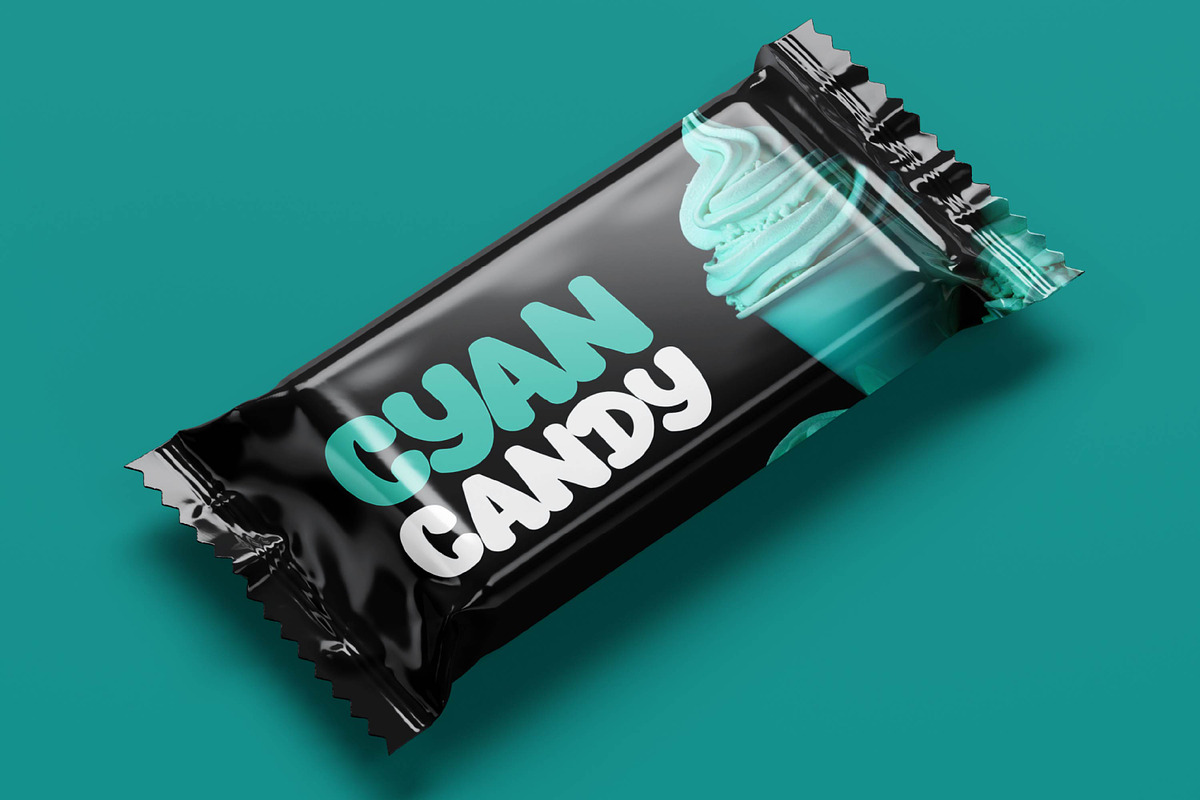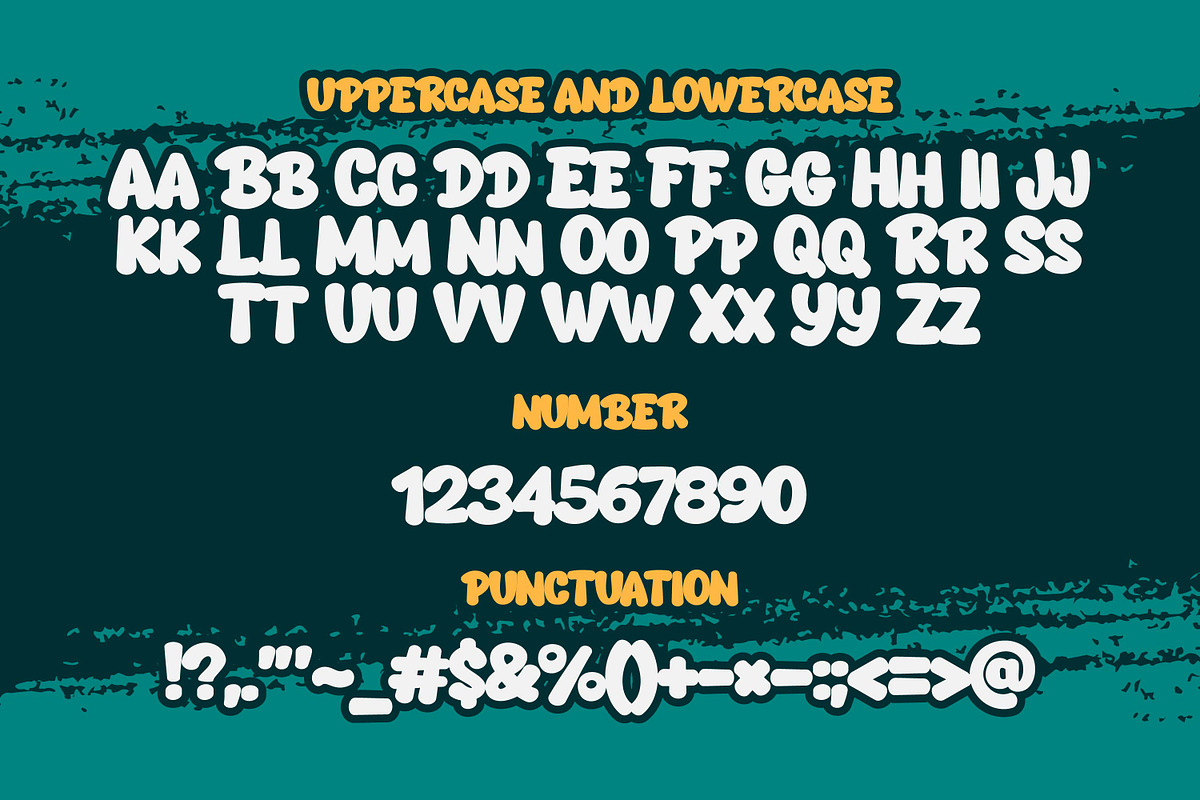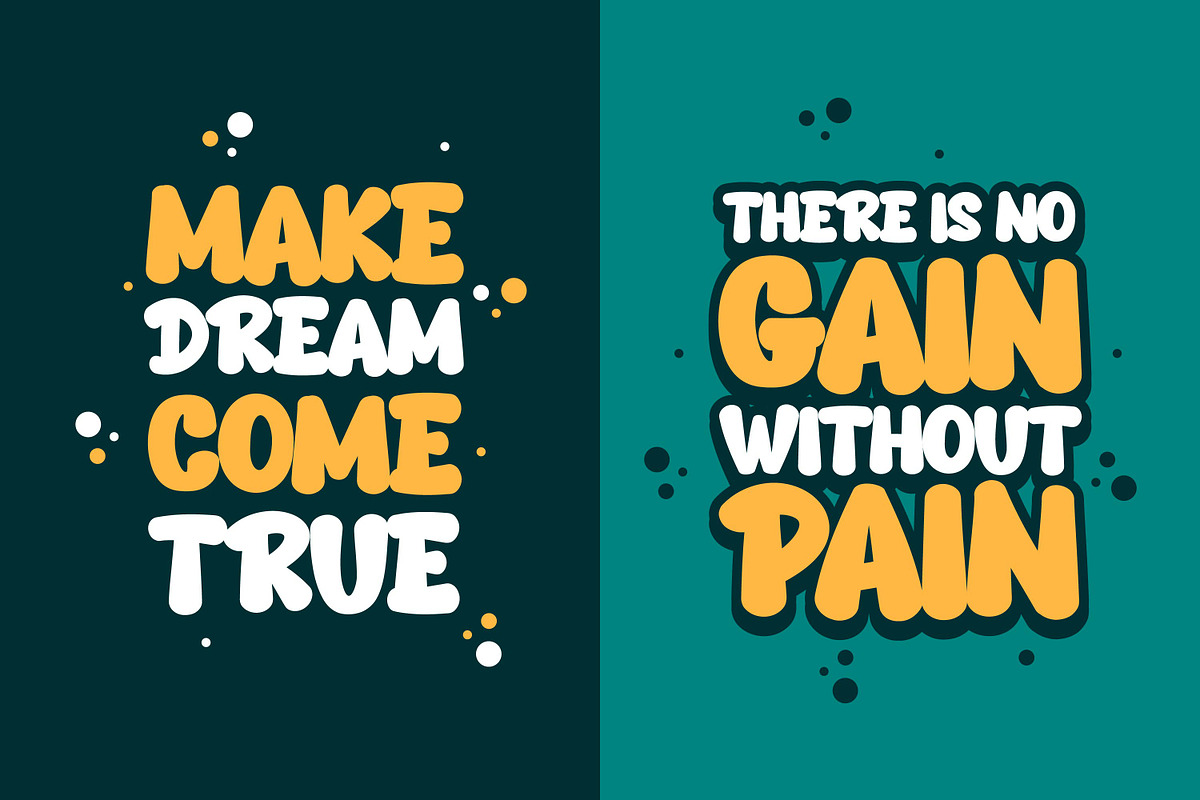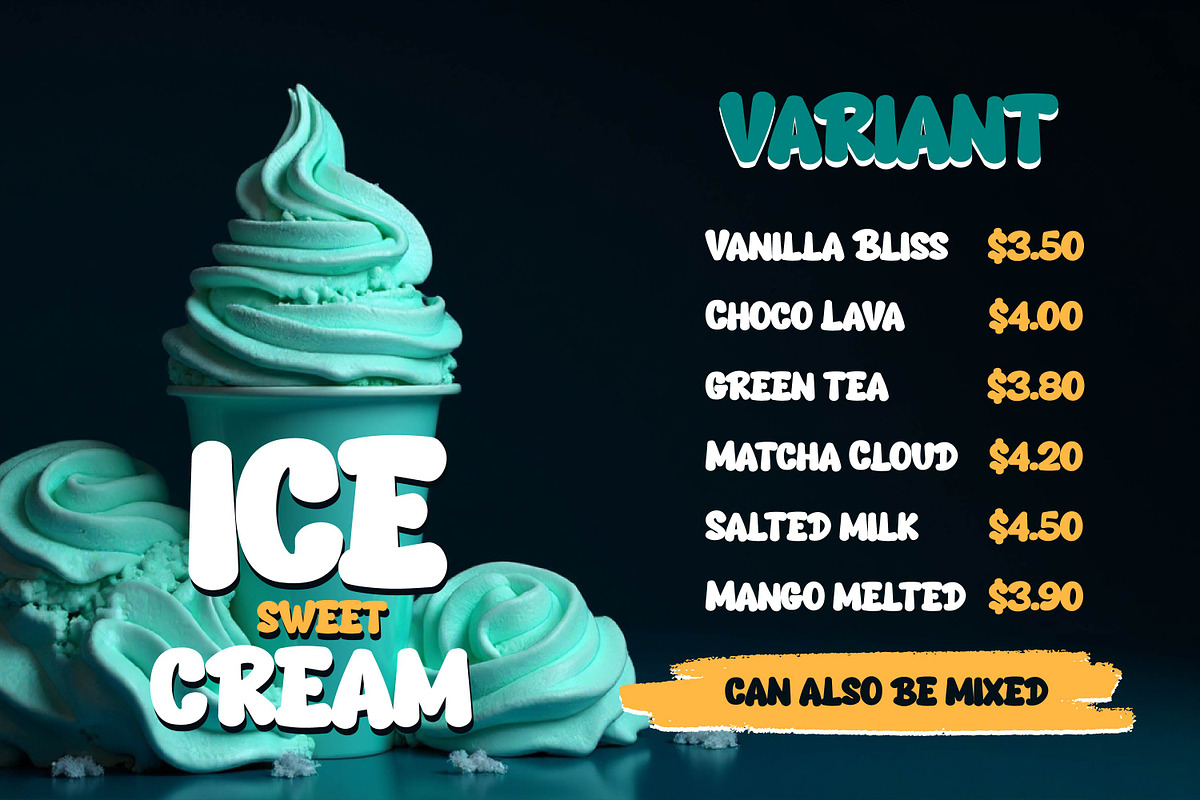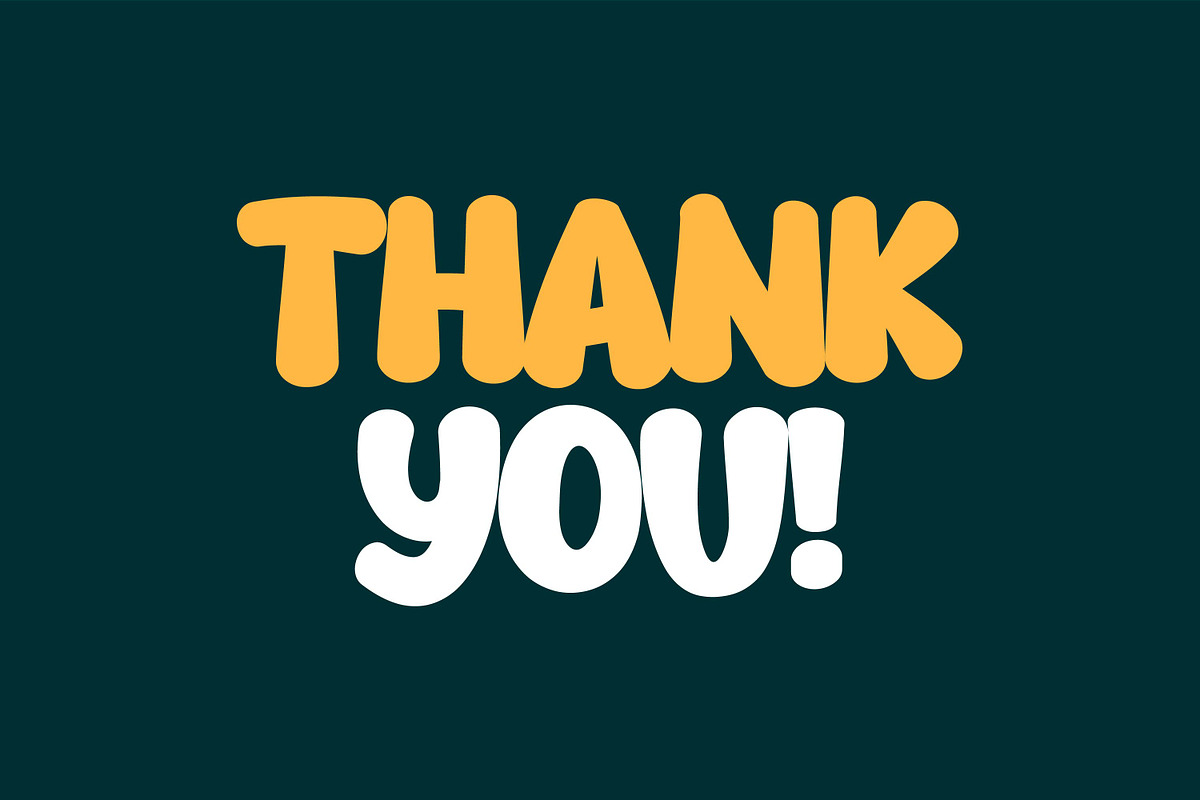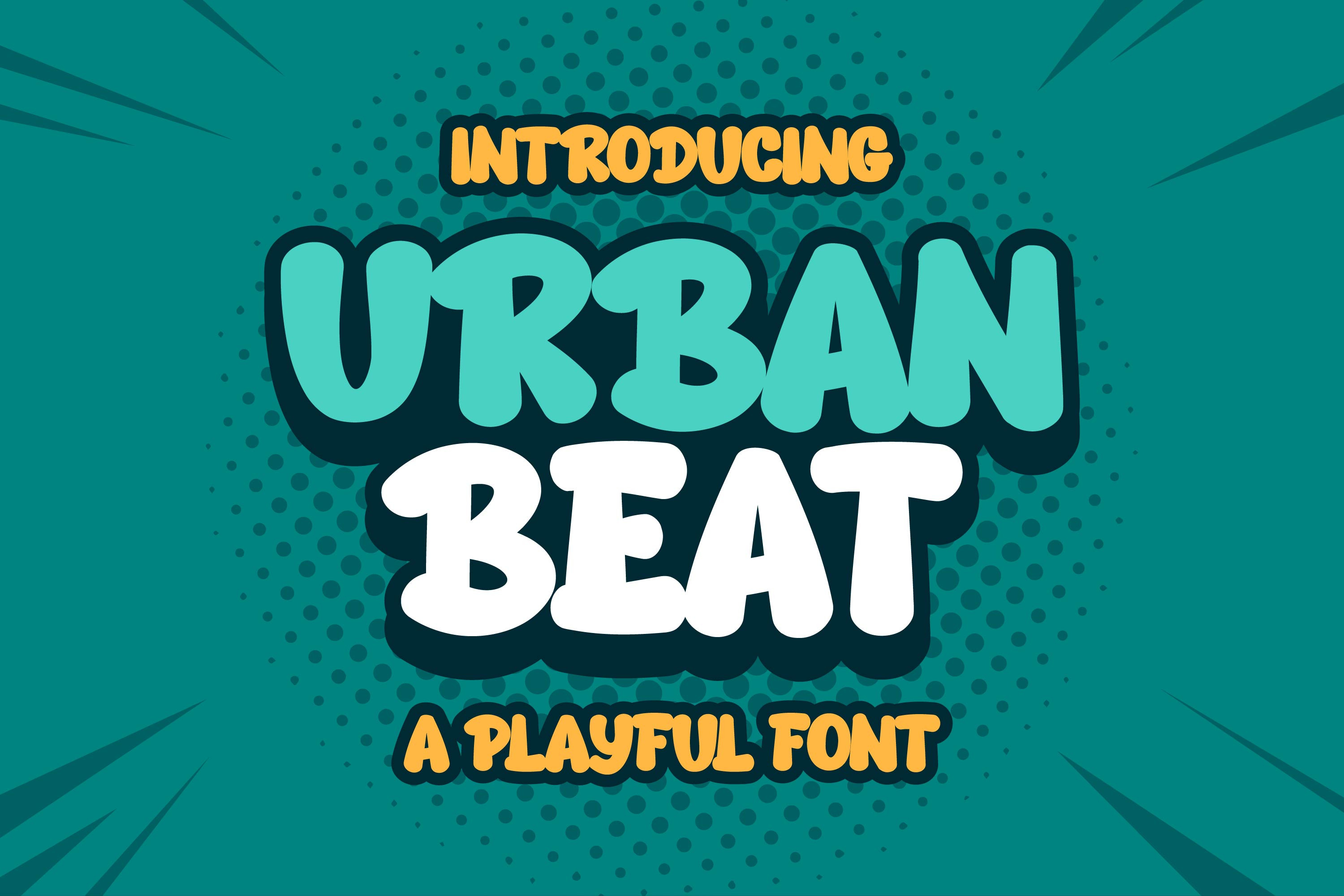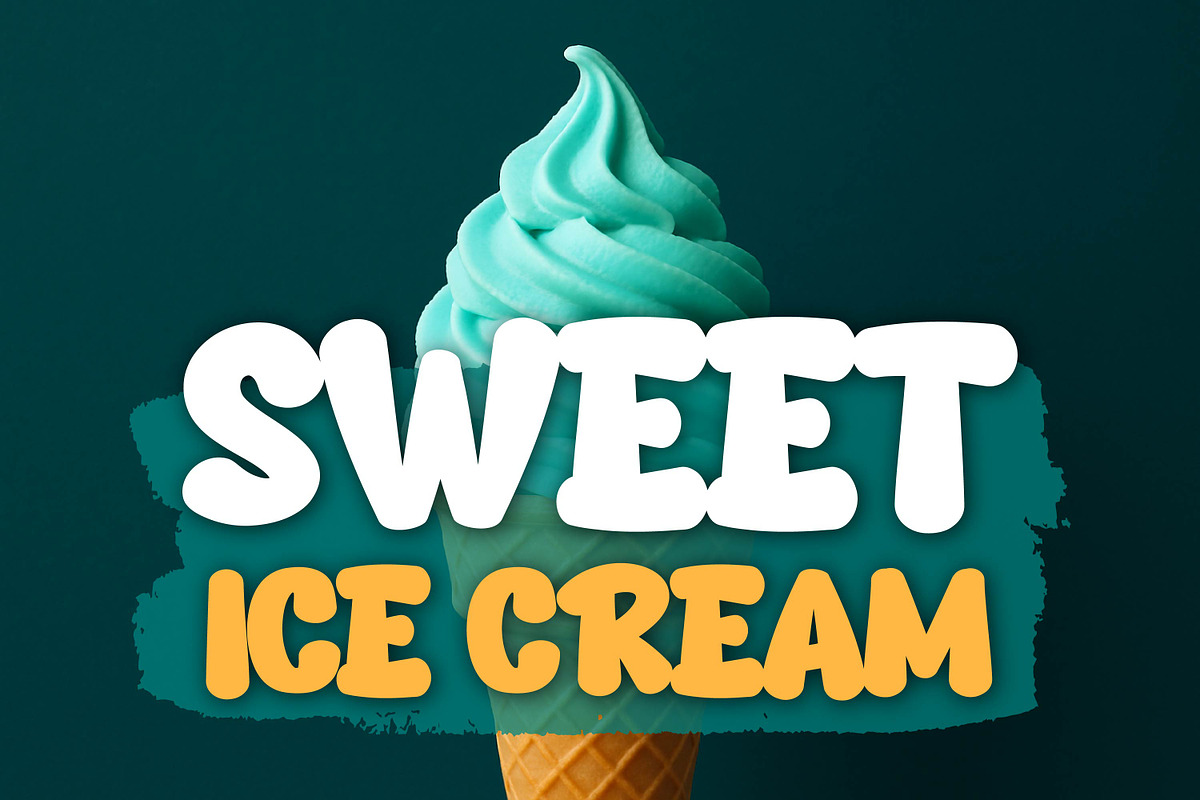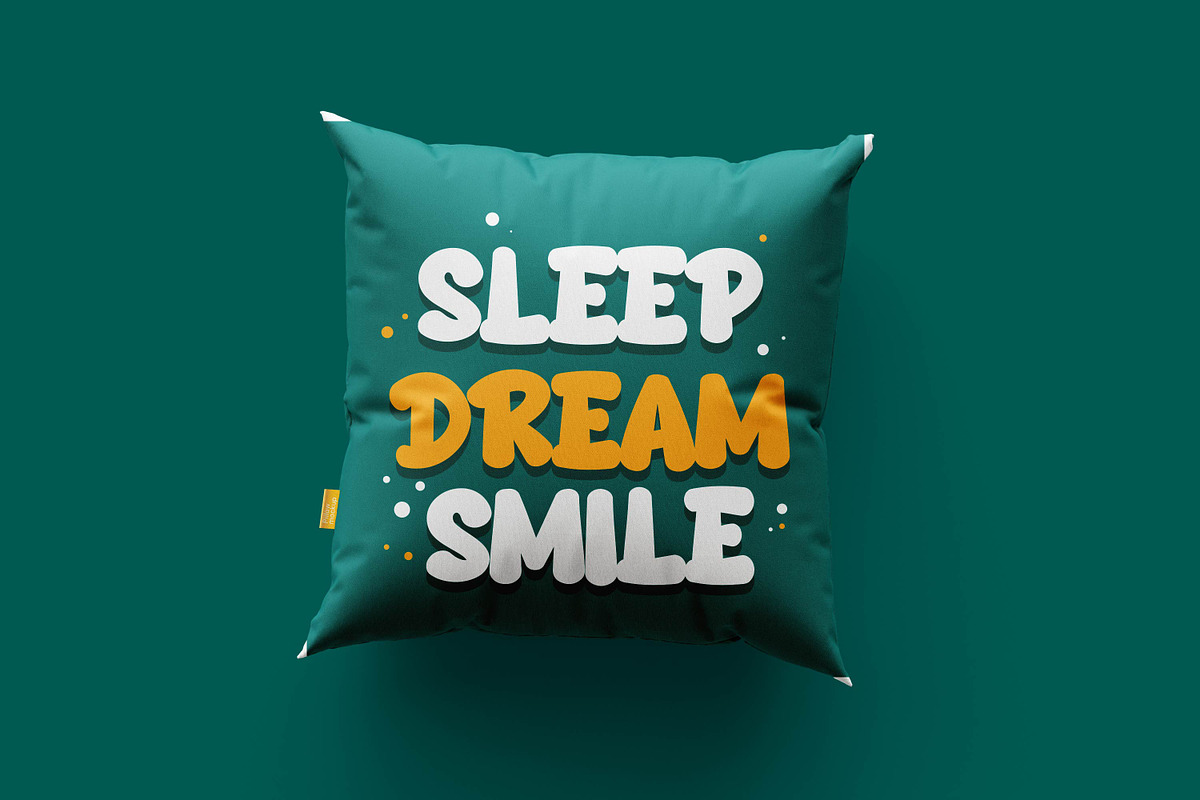
Urban Beat - Fun Bold Display Font
Urban Beat is a fun and bold display font inspired by street art and youthful energy. Its chunky letters and dynamic rhythm make it perfect for posters, music covers, sports branding, and trendy merchandise that need a cool, urban edge.